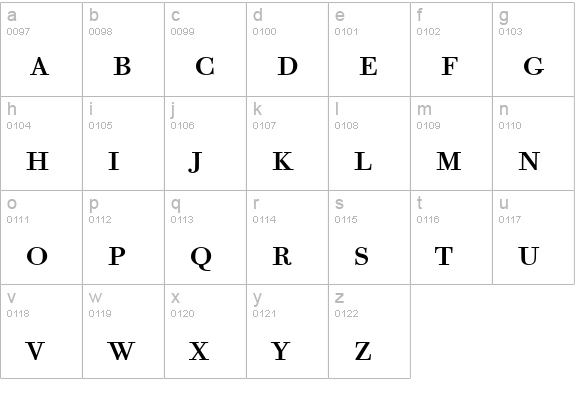
Bodoni Old Face BE Regular Small Caps & Oldstyle Figures is the standard, neutral variant in the Bodoni typeface family \xE2\x80\x94 well suited to general body text, paragraphs, and standard typographic work.
Bodoni Old Face BE Regular Small Caps & Oldstyle Figures font exudes timeless elegance and sophistication with its classic design and refined details. This exquisite typeface pays homage to the renowned Bodoni style, featuring delicate small caps and graceful oldstyle figures that add a touch of charm to any project. What makes Bodoni Old Face BE truly stand out is its seamless blend of tradition and modernity, making it a versatile choice for a wide range of design applications. Whether you're working on a high-end editorial project or a stylish branding campaign, this font is sure to elevate your work to new heights. The best part? Bodoni Old Face BE Regular Small Caps & Oldstyle Figures font is available for free download at FontsMarket.com. So, go ahead and add this exceptional typeface to your collection today and watch your designs come to life with sophistication and flair.